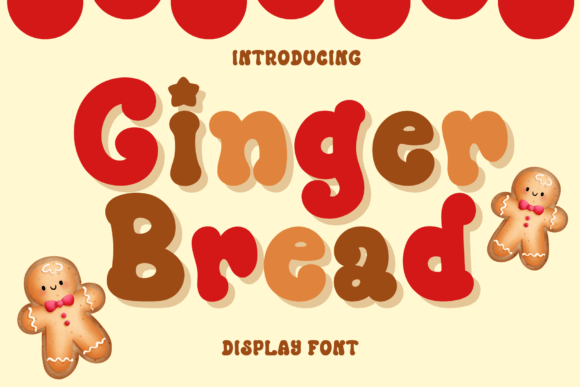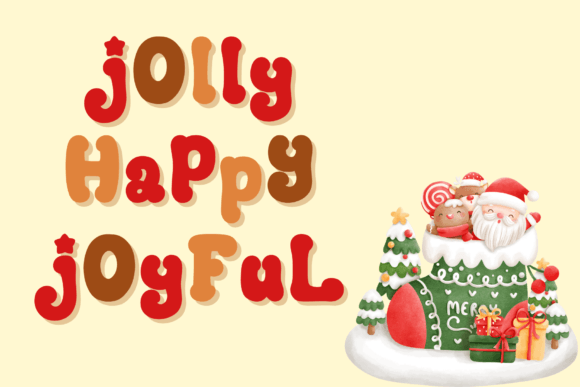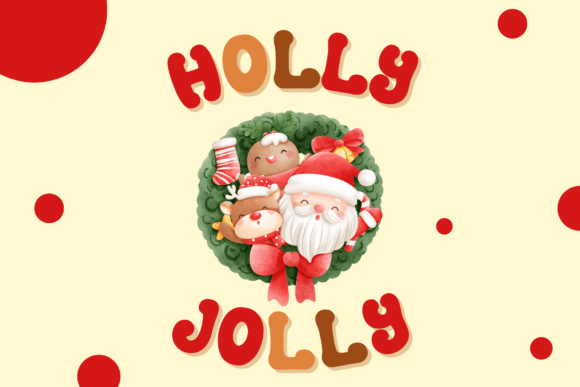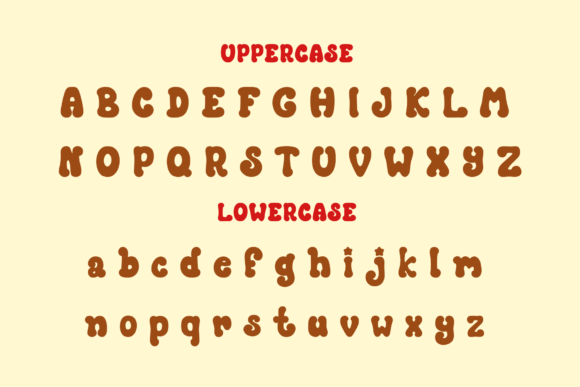
Gingerbread is a font that exudes adorable charm and is filled with delightful design elements. It possesses a vibrant and irresistibly cute atmosphere, characterized by its simplicity and cuteness that is hard to resist. This font is soft, gentle, and evokes feelings of warmth and love. The Cute Style Font adds a touch of sweetness and playfulness to any project.
Gingerbread Font